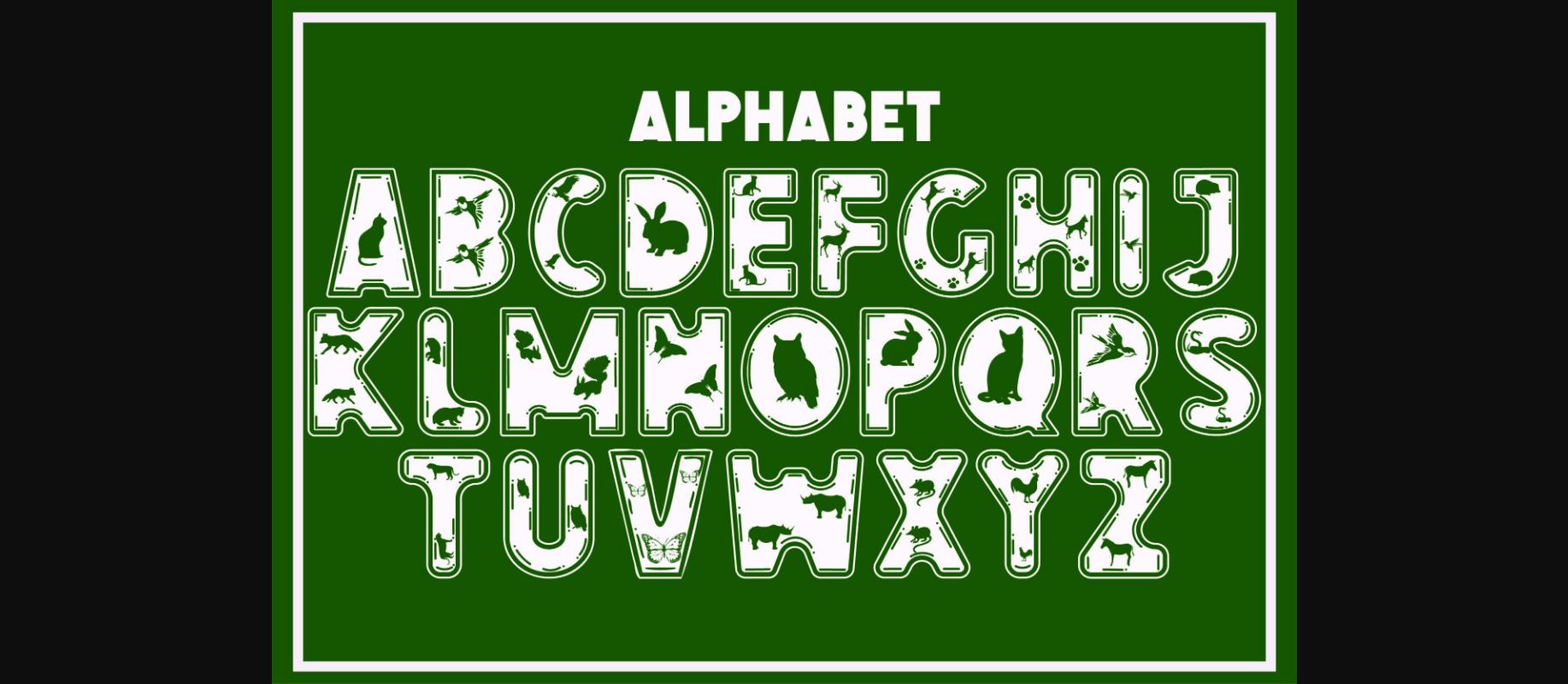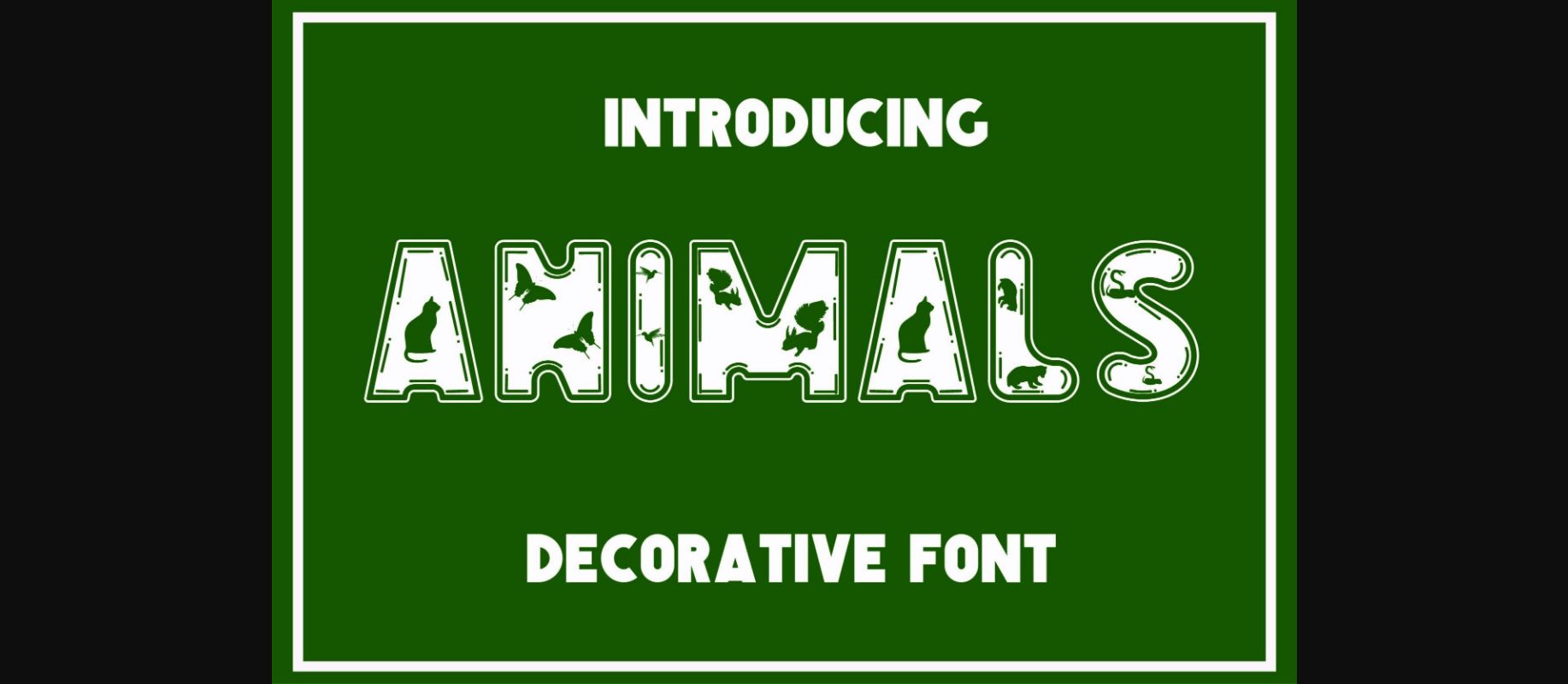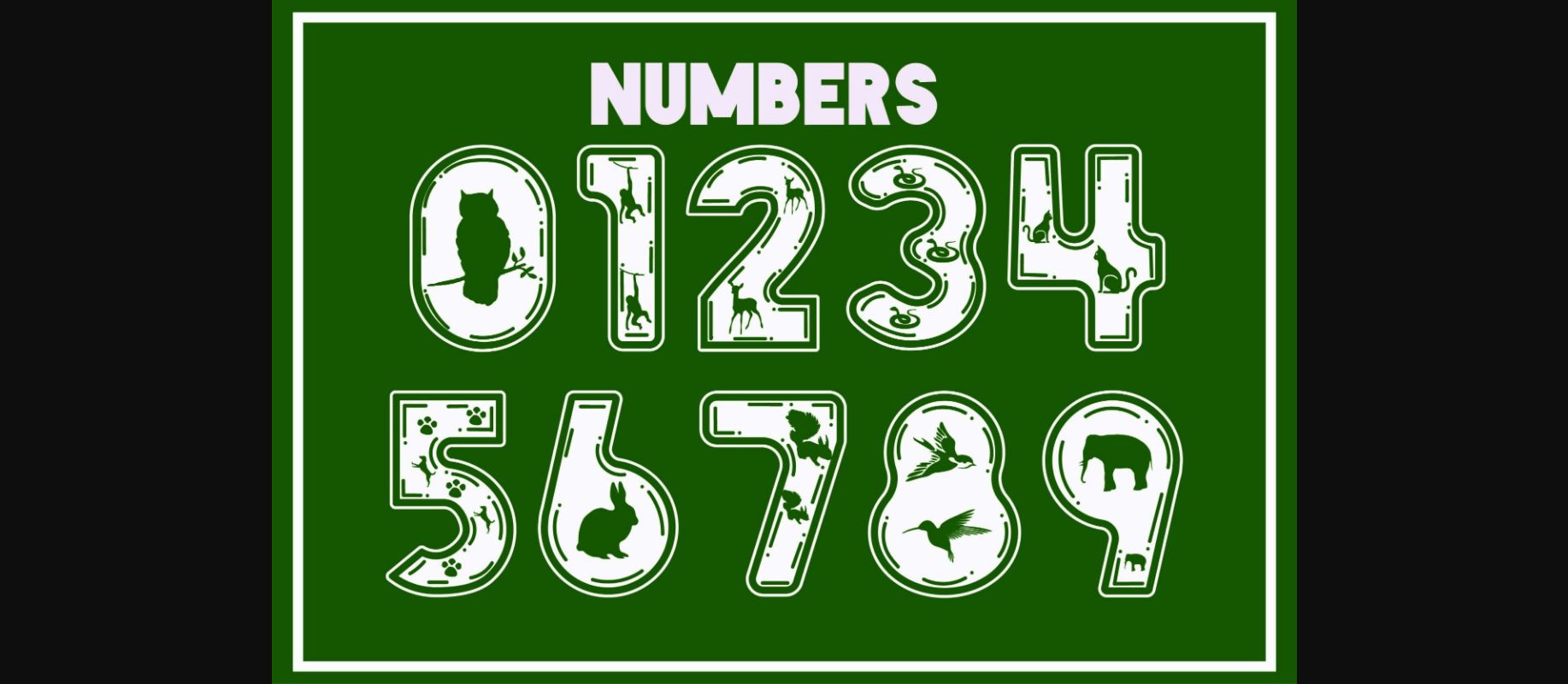
About Animals Font
Animals is a playful and uniquely designed decorative font, featuring animals as ornaments. It will add an incredibly joyful touch to your designs. Add this beautiful font to each of your creative ideas and notice how it makes them stand out!